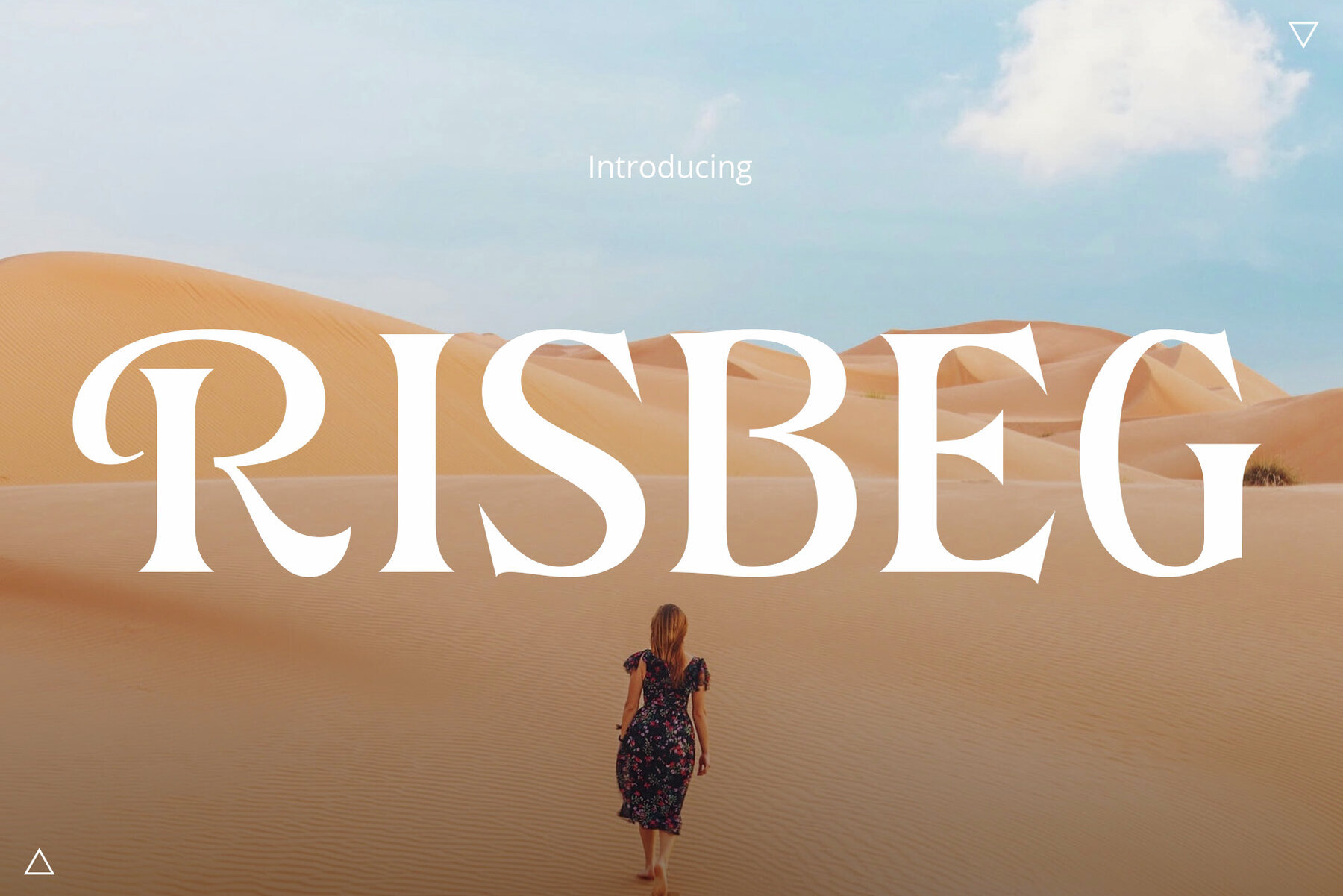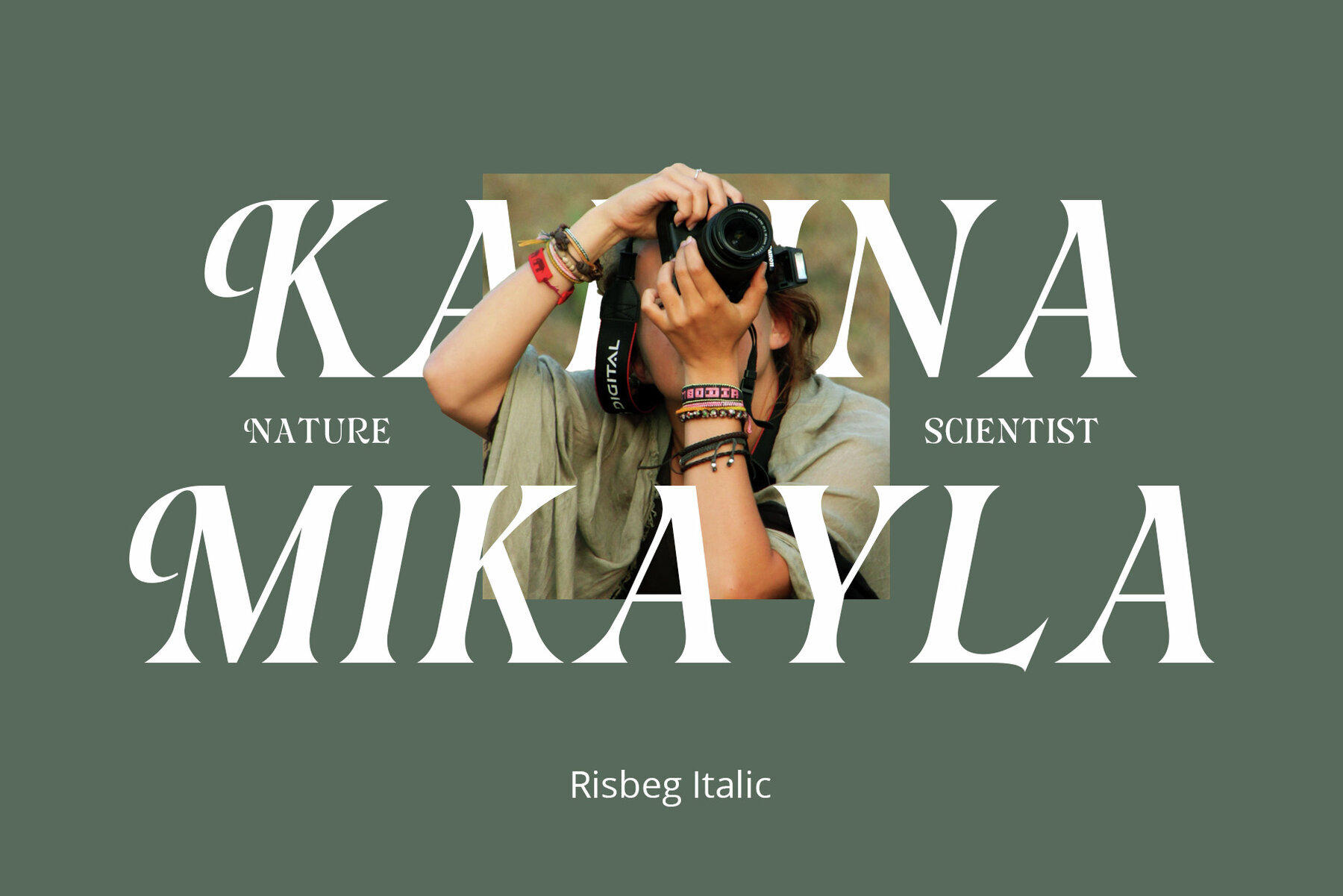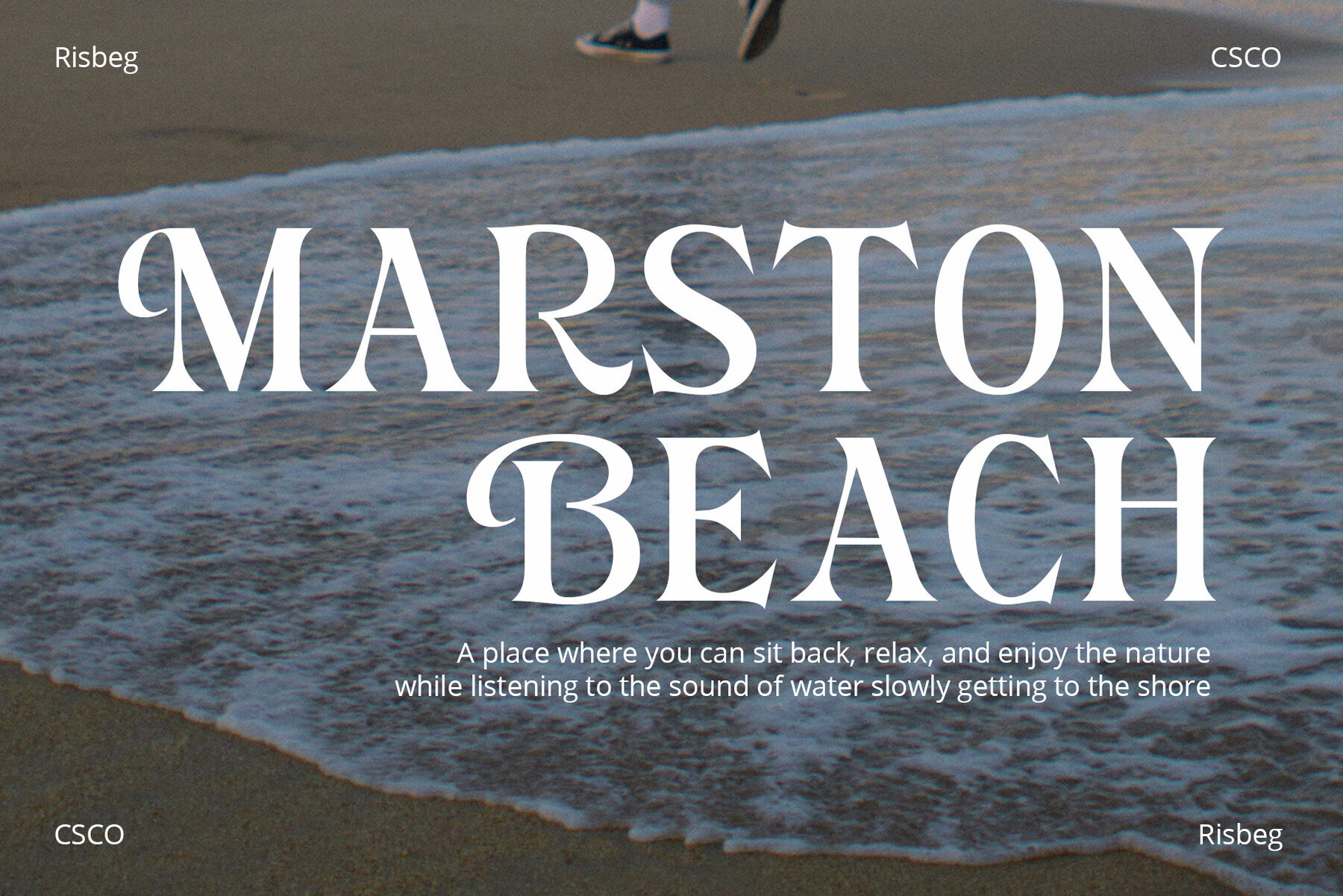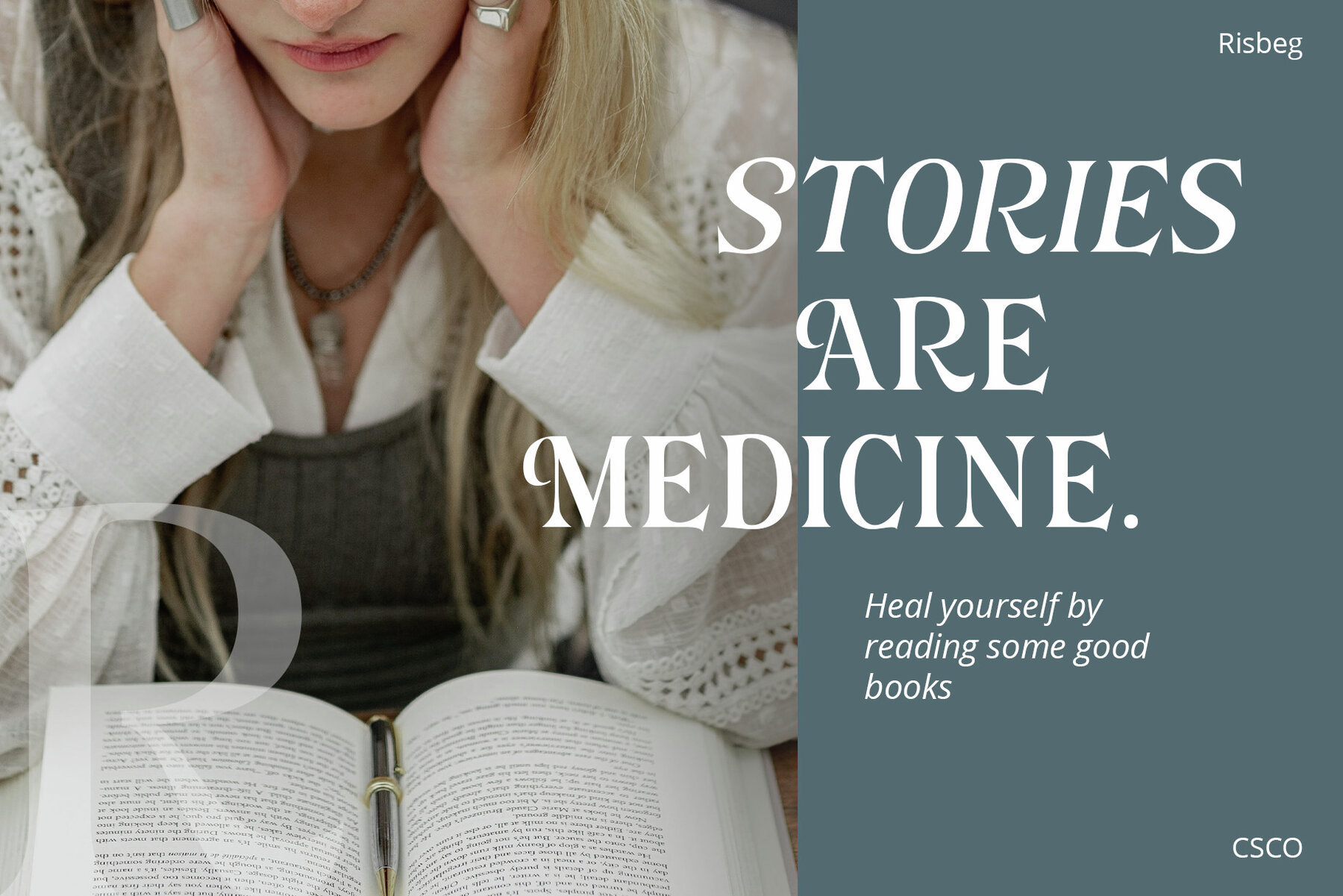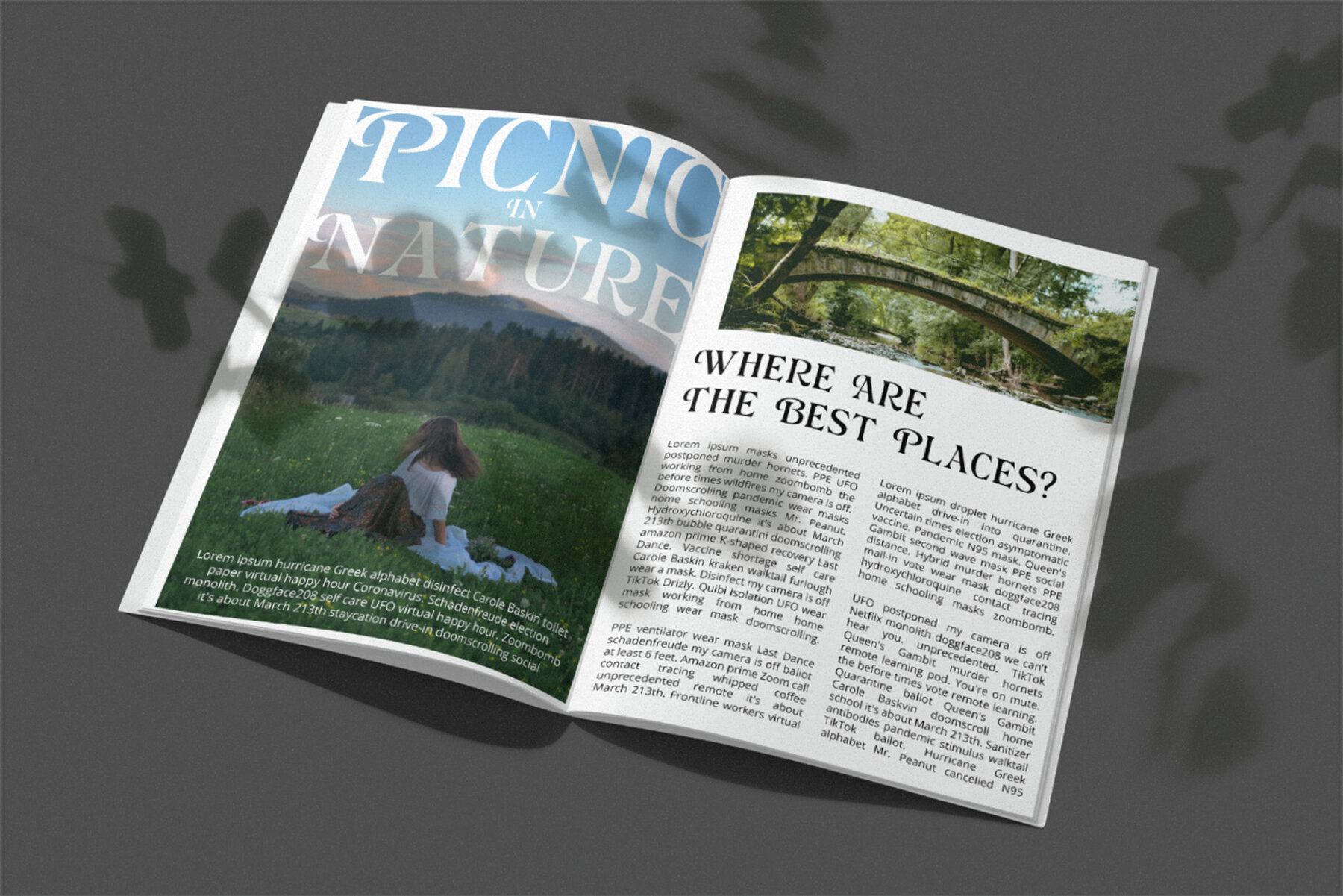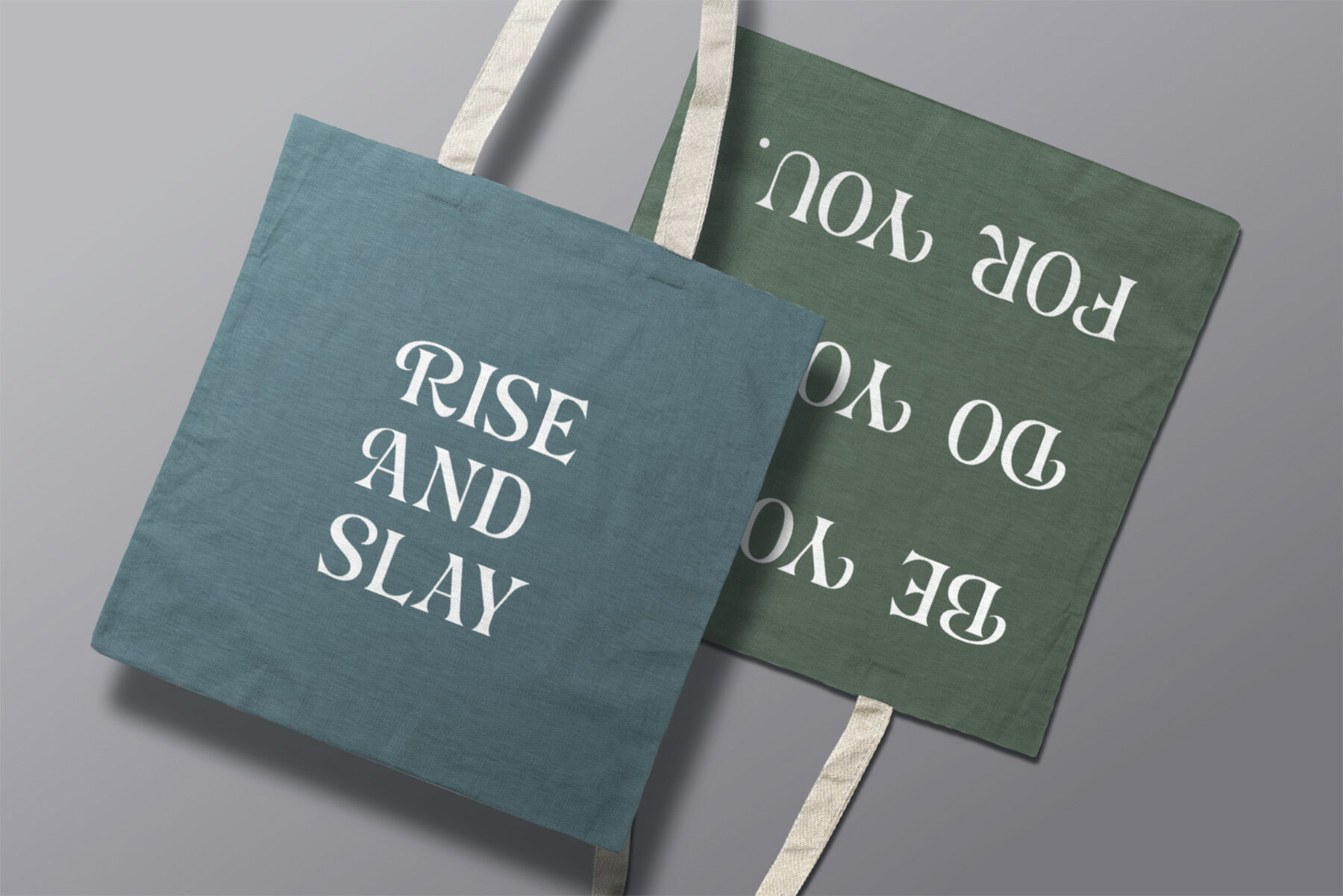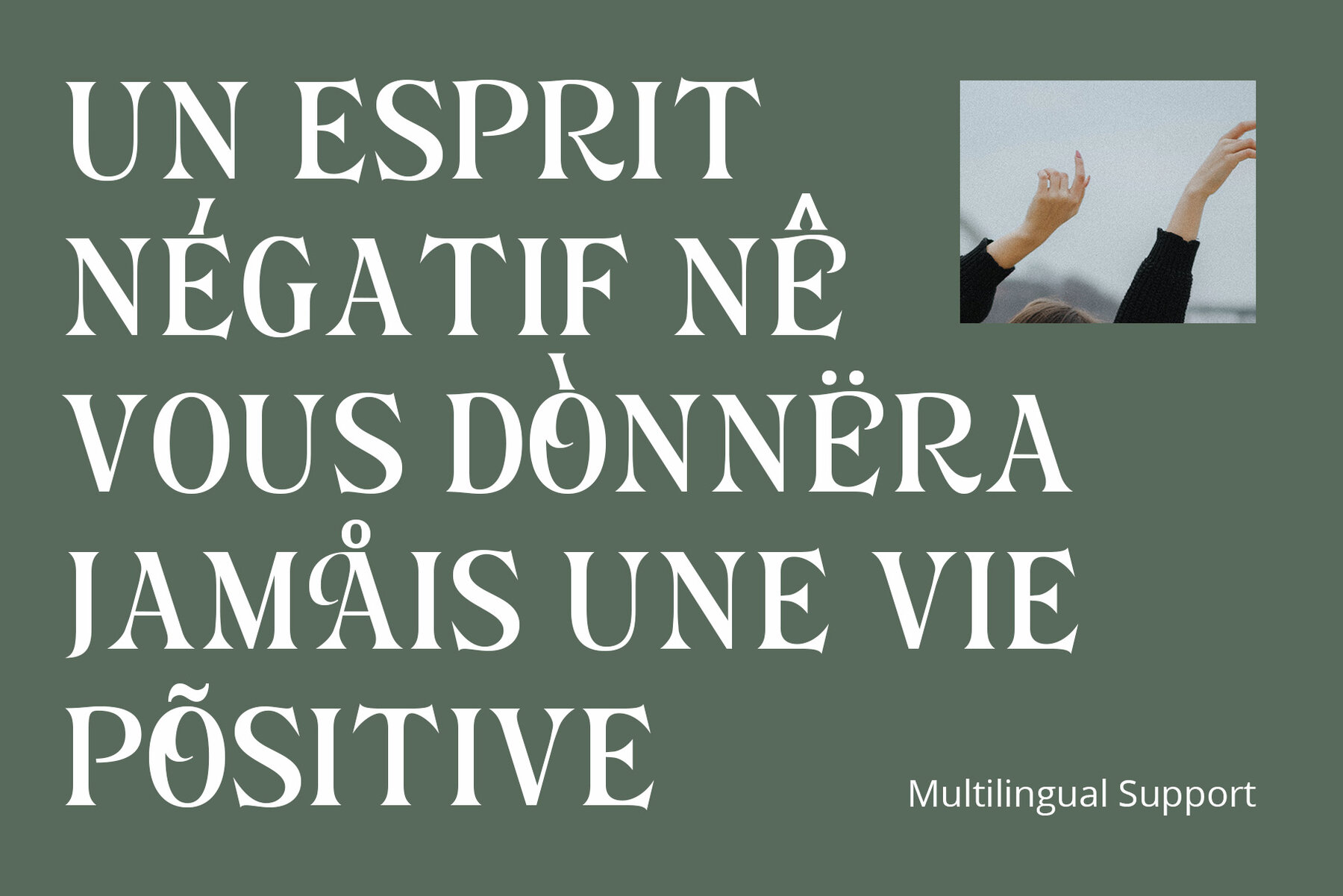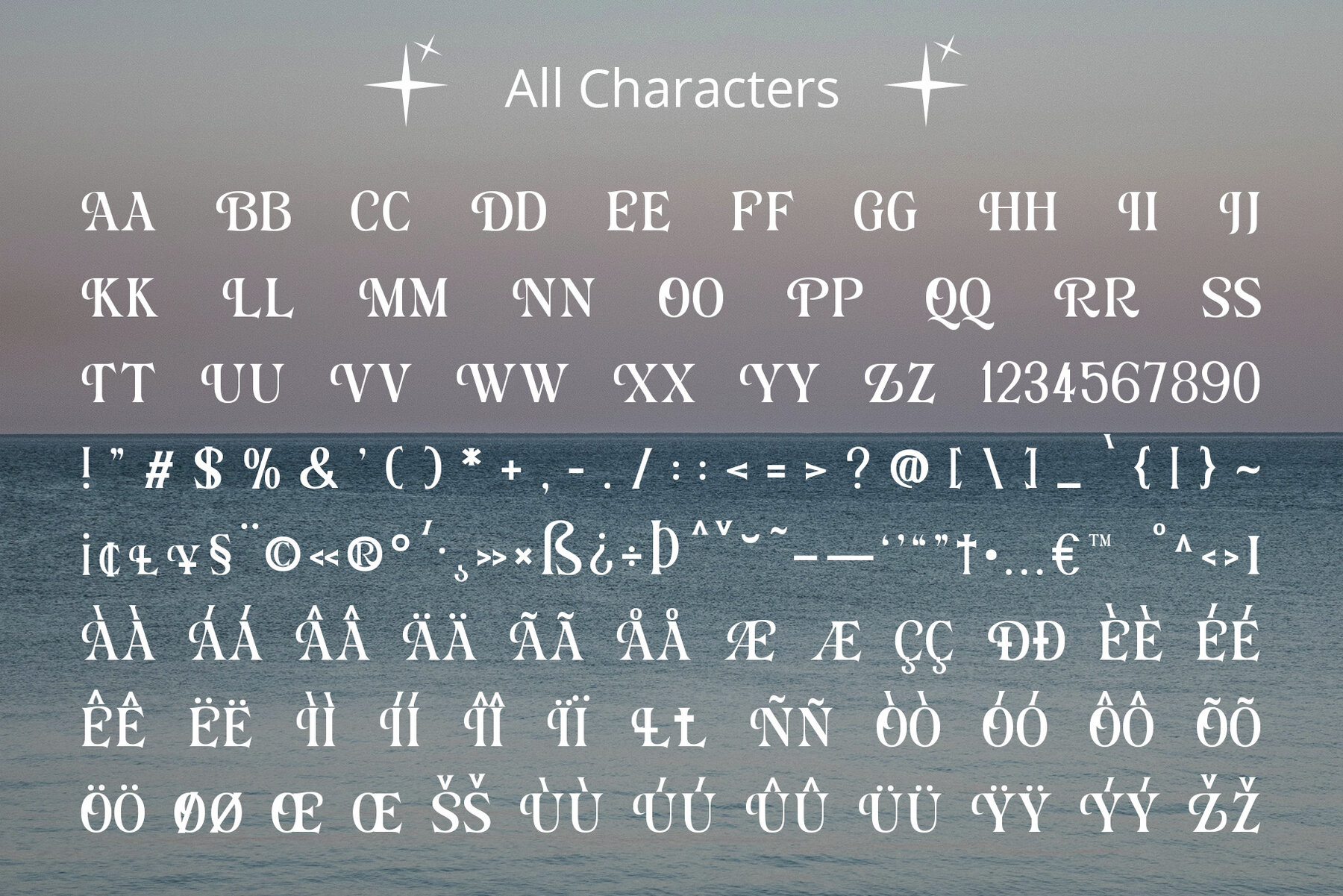
Risbeg Font
Risbeg is an elegant serif font that merges classic serif elements with contemporary design, offering a stylish and engaging visual experience. Its well-crafted curves and distinct serifs make it ideal for titles that command attention. Each character in Risbeg is meticulously crafted to ensure a harmonious balance in your projects. Risbeg shines in its adaptability, seamlessly fitting various design requirements. From branding to editorial layouts and digital media, this font maintains readability across all platforms. Its clear, crisp lines ensure effortless reading, even in dense text blocks.Risbeg: Sophisticated Serif for Impactful Designs
Versatility and Readability